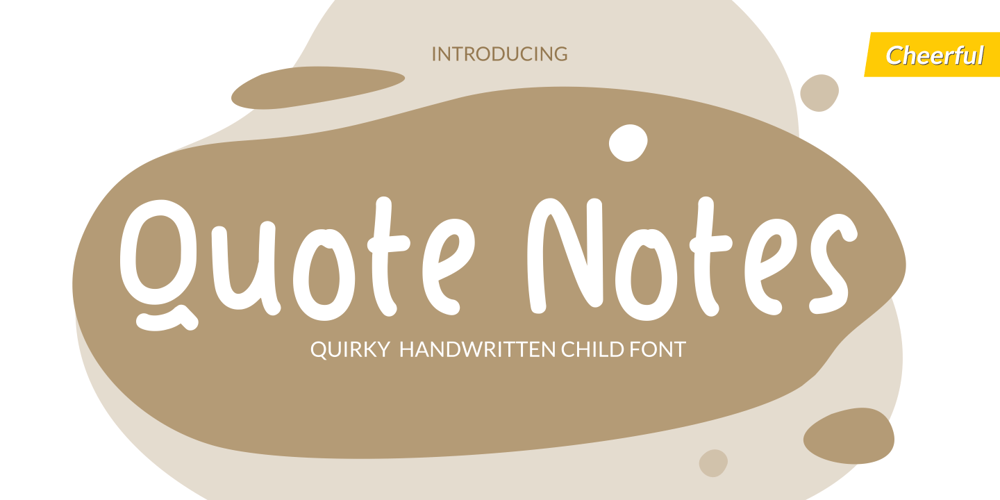
Quote Notes Font Family was designed by Deri Kurnia and published by Trim Studio. Quote Notes contains 1 styles and family package options. Quote Notes is cute whimsical font with fun style to let you explore more about craft and cuteness, especially in precious moment like holiday, baby shower, birthday, christmas, easter and many more,, Its perfectly suited for crafter and graphic artist to complete their design such as invitation, advertisement, poster, logo, birthday, product sign, and many more!Quote Notes also Lightweight, even so contains All Standard glyphs and punctuations